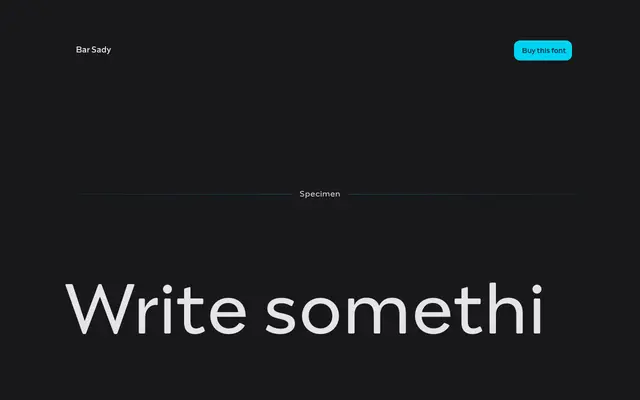
Bar Sady
Capitalics · Mateusz Machalski, Małgorzata Bartosik · 2023
A free revival of vernacular bar signage lettering from Warsaw, produced as part of the city's 2023 Participatory Budget.
Drawn from the original lettering of the "BAR SADY" sign in Warsaw's Żoliborz district, this revival was produced by Mateusz Machalski and Małgorzata Bartosik. The original glyphs were first lifted from the source lettering, then extended to a full A-Z character set before a Bold weight was developed. The family is released free of charge in three weights plus a variable version.
A revival of hand-lettered signage from a Warsaw bar, rooted in vernacular lettering traditions rather than any formal typographic genre; classified as display given its decorative, sign-painting origins.